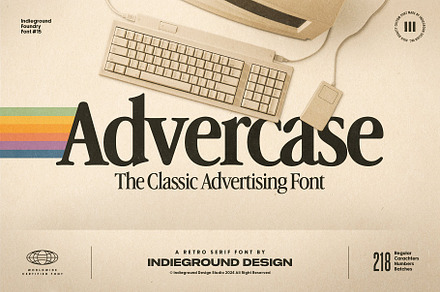
Advercase Font
A display face with an advertising heritage – condensed, high-impact letterforms drawn for headline use at large sizes.
Condensing lets more characters fit a fixed measure, which is why advertising type historically ran narrow and why the style still reads as promotional.
- Condensed display proportions
- Multilingual support
Where it works
- Advertising and campaign headlines
- Poster and print design
- Packaging and signage
- Editorial covers